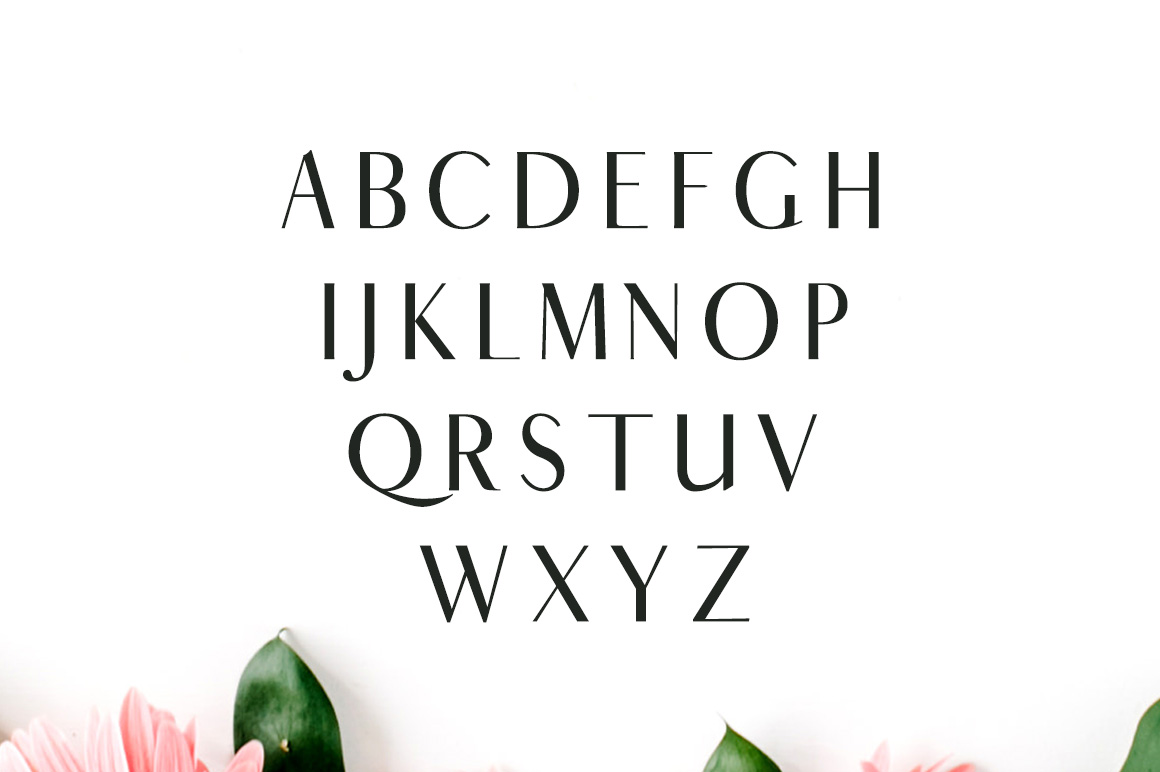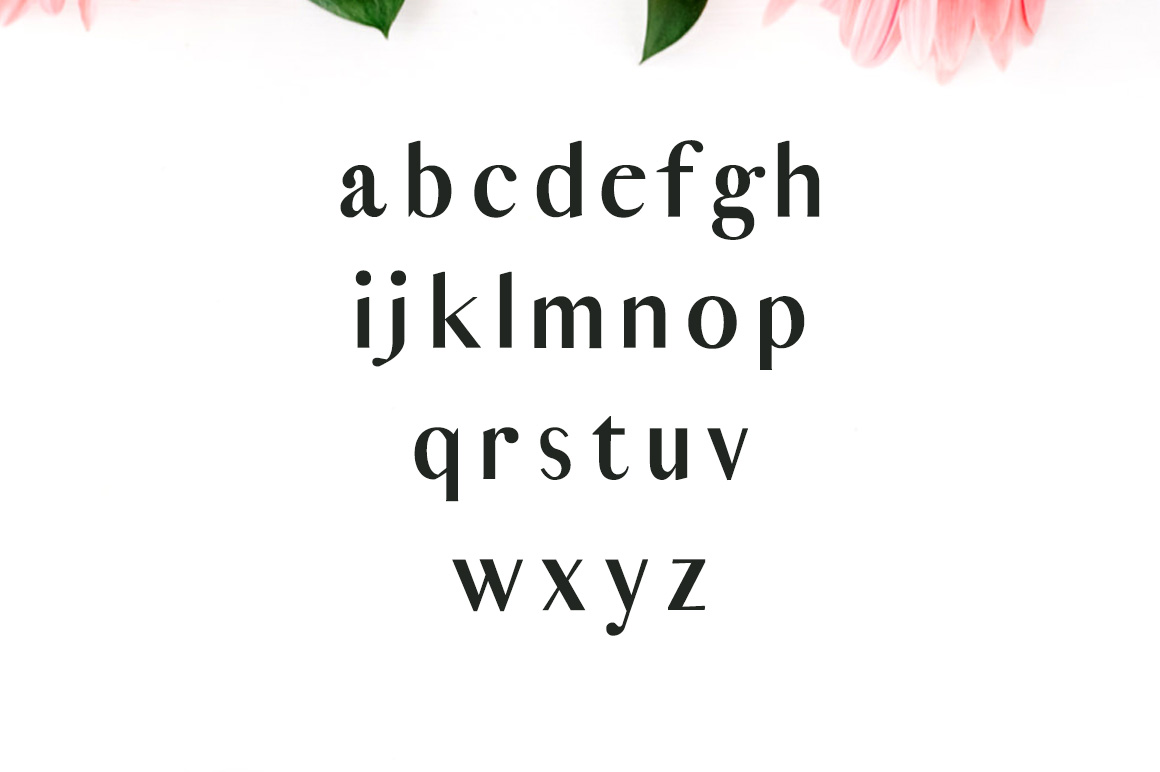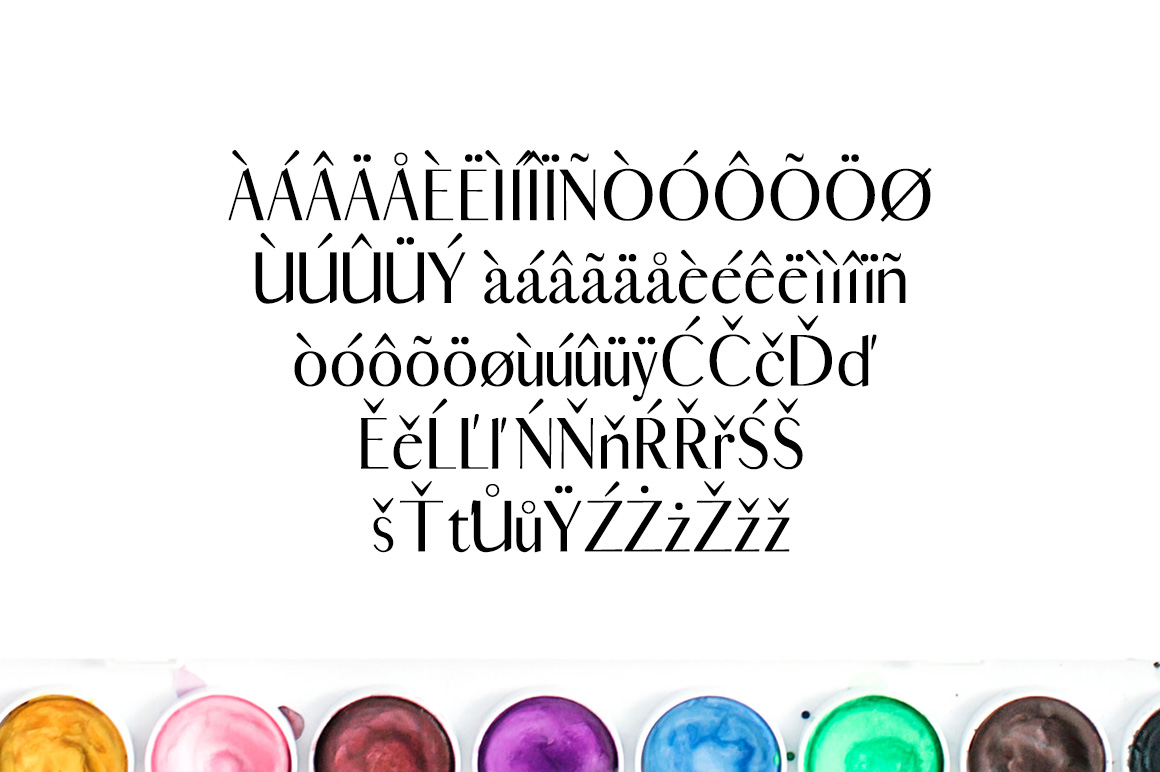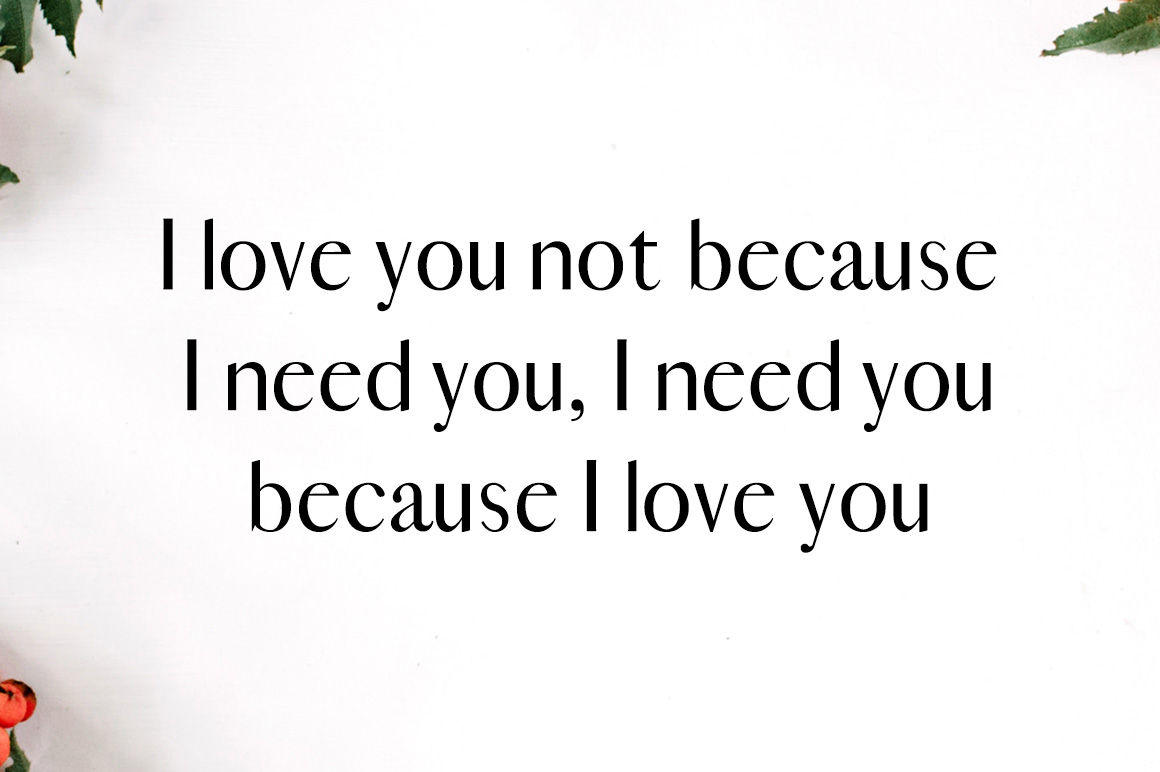
Introduction to Cordaro Font
Classy and timeless, Cordaro is an intriguing serif font.
Clean and well constructed, Cordaro is a serif that can be used for a large number of projects to inject some classiness and editorial appeal Add Cordaro, a lovely serif, to your font collection today.